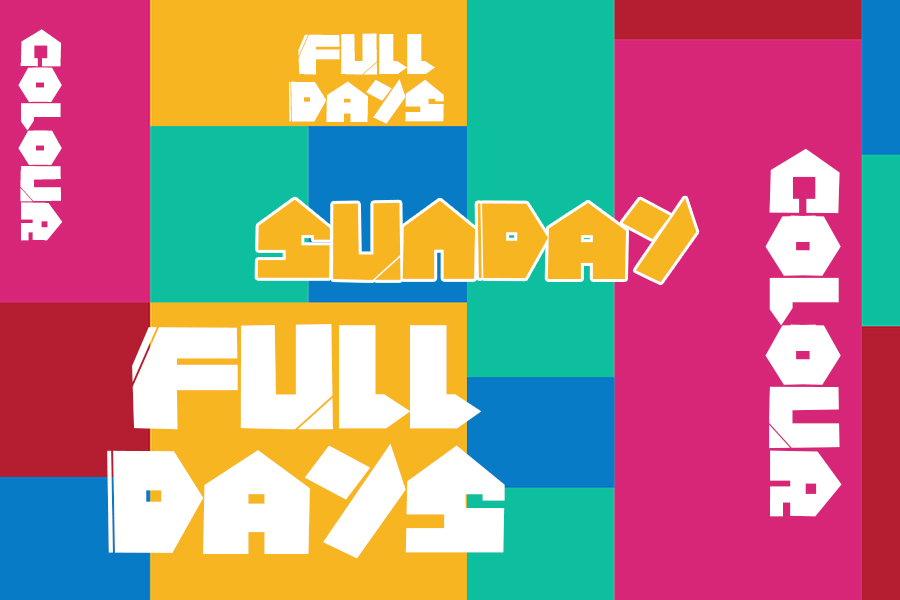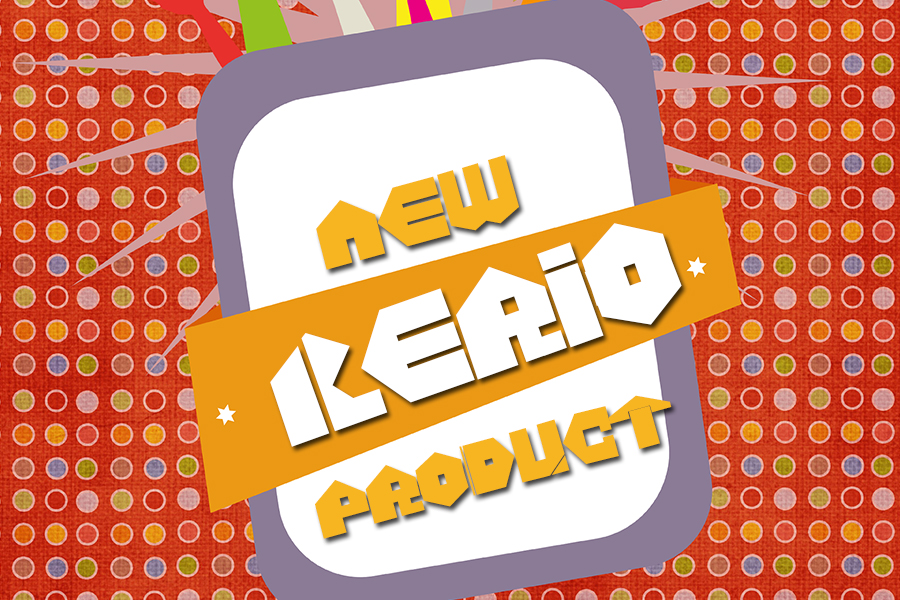
Game House Font
Game House Display Font
This is a daring and incredibly unique display font. Add this chunky lettered font to your designs and notice how it makes them come alive!